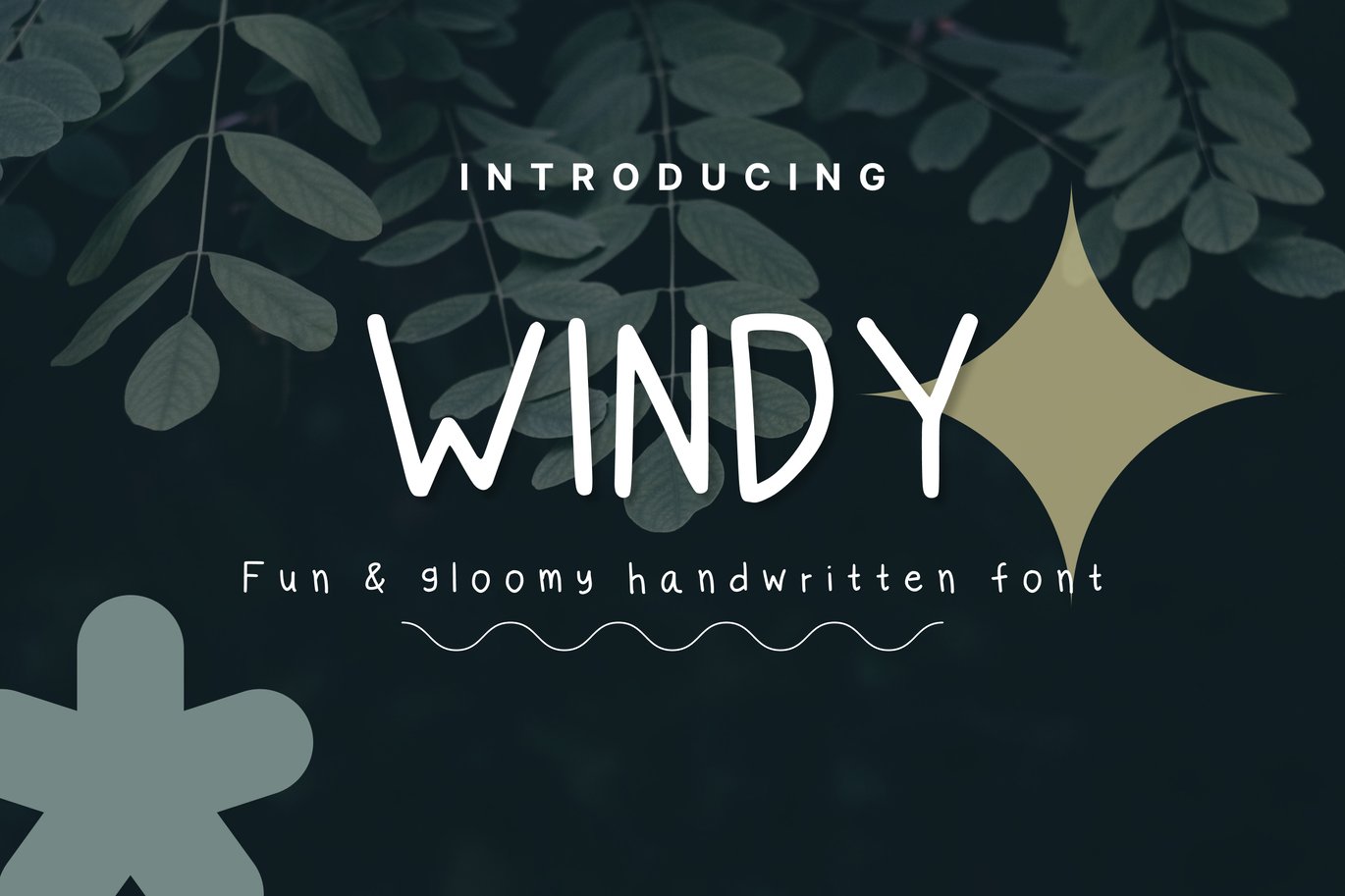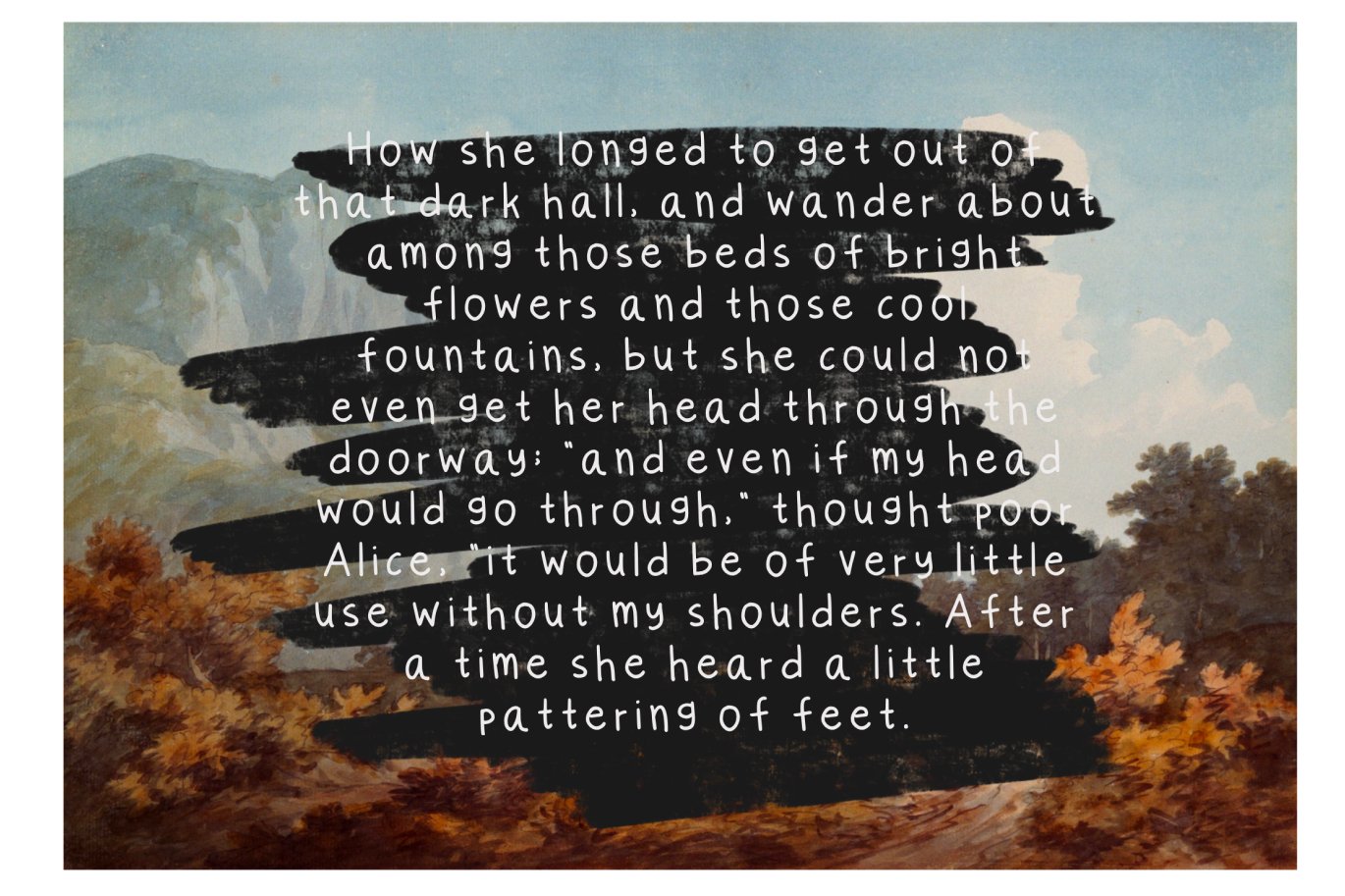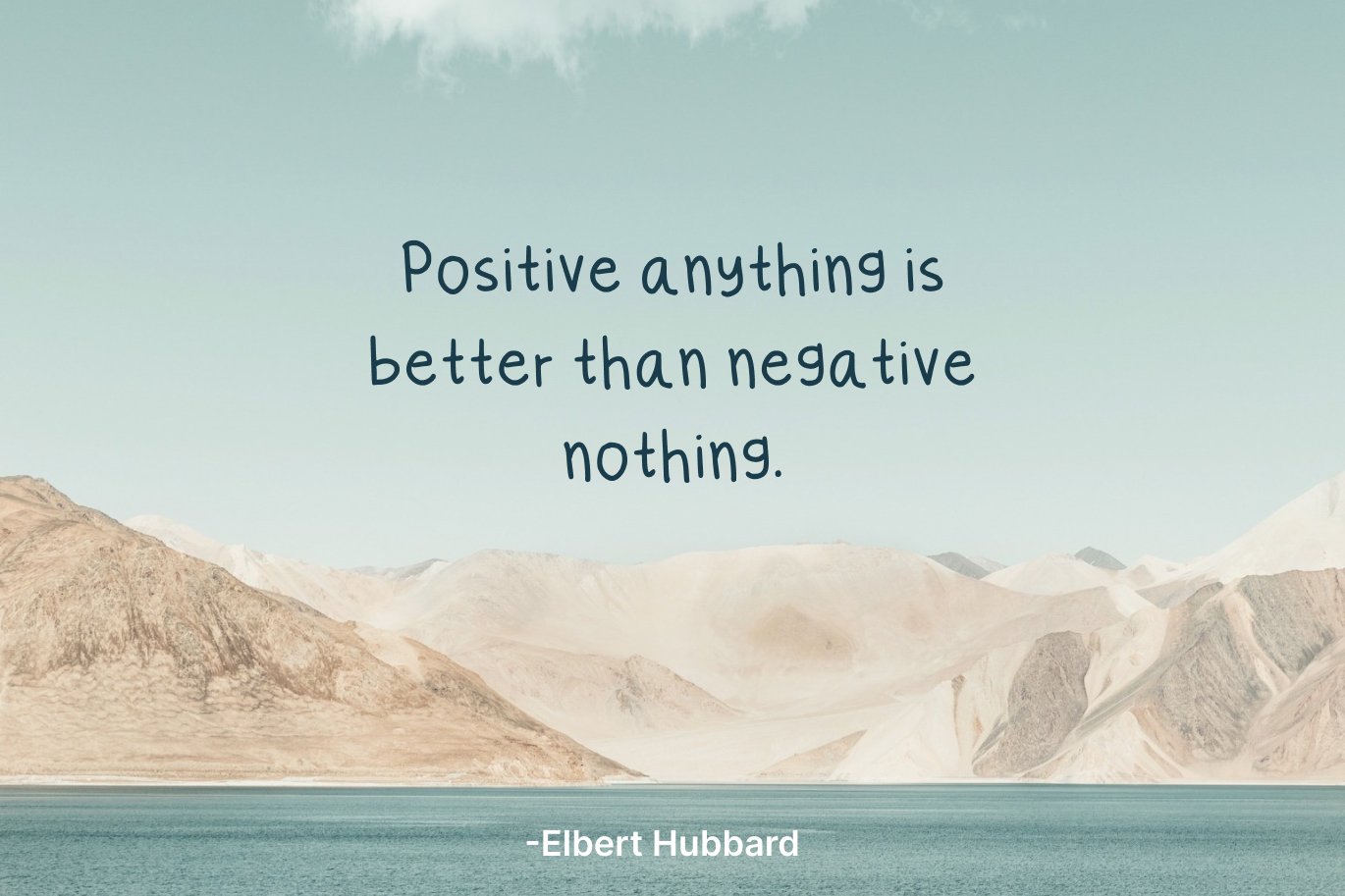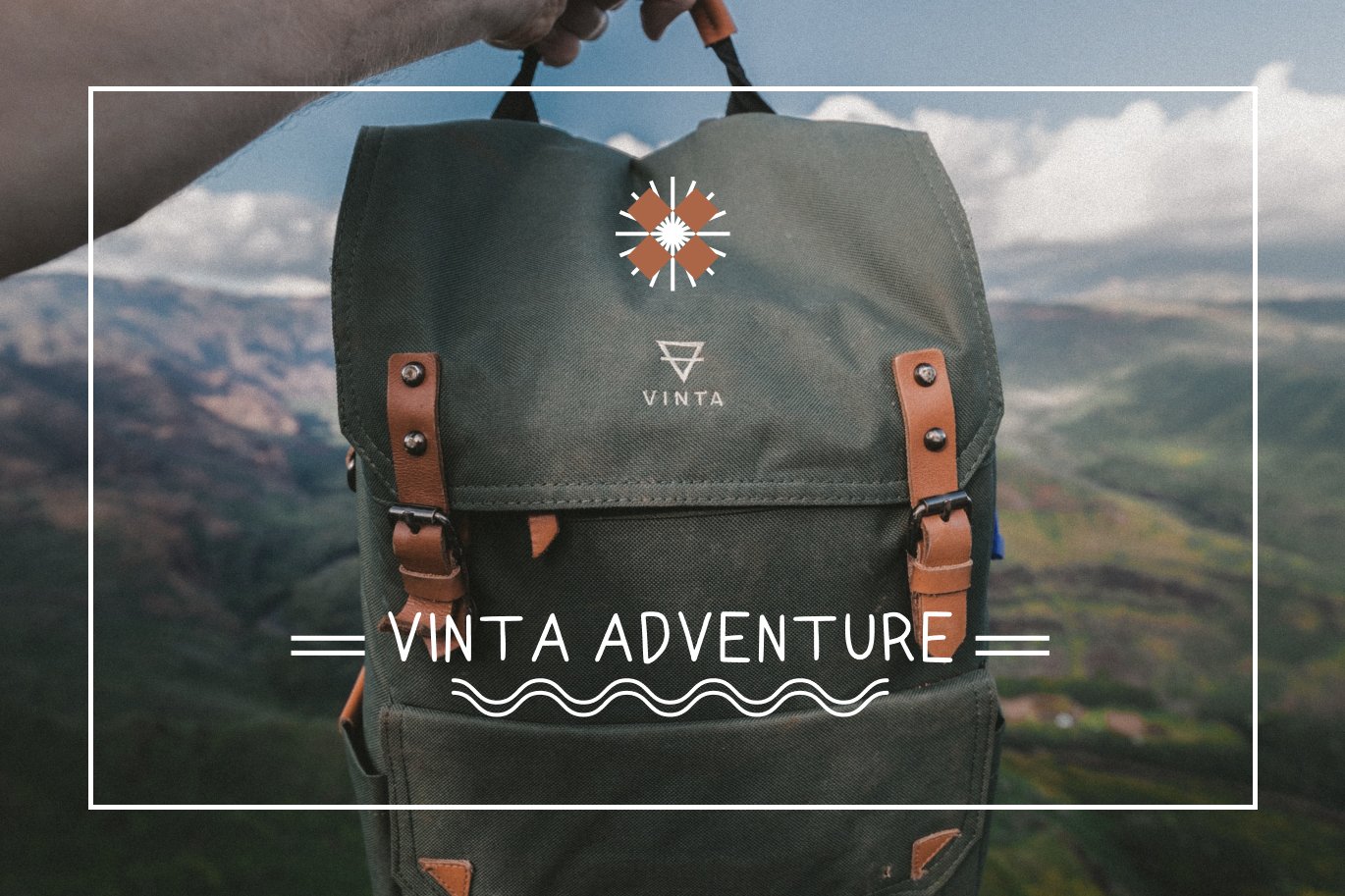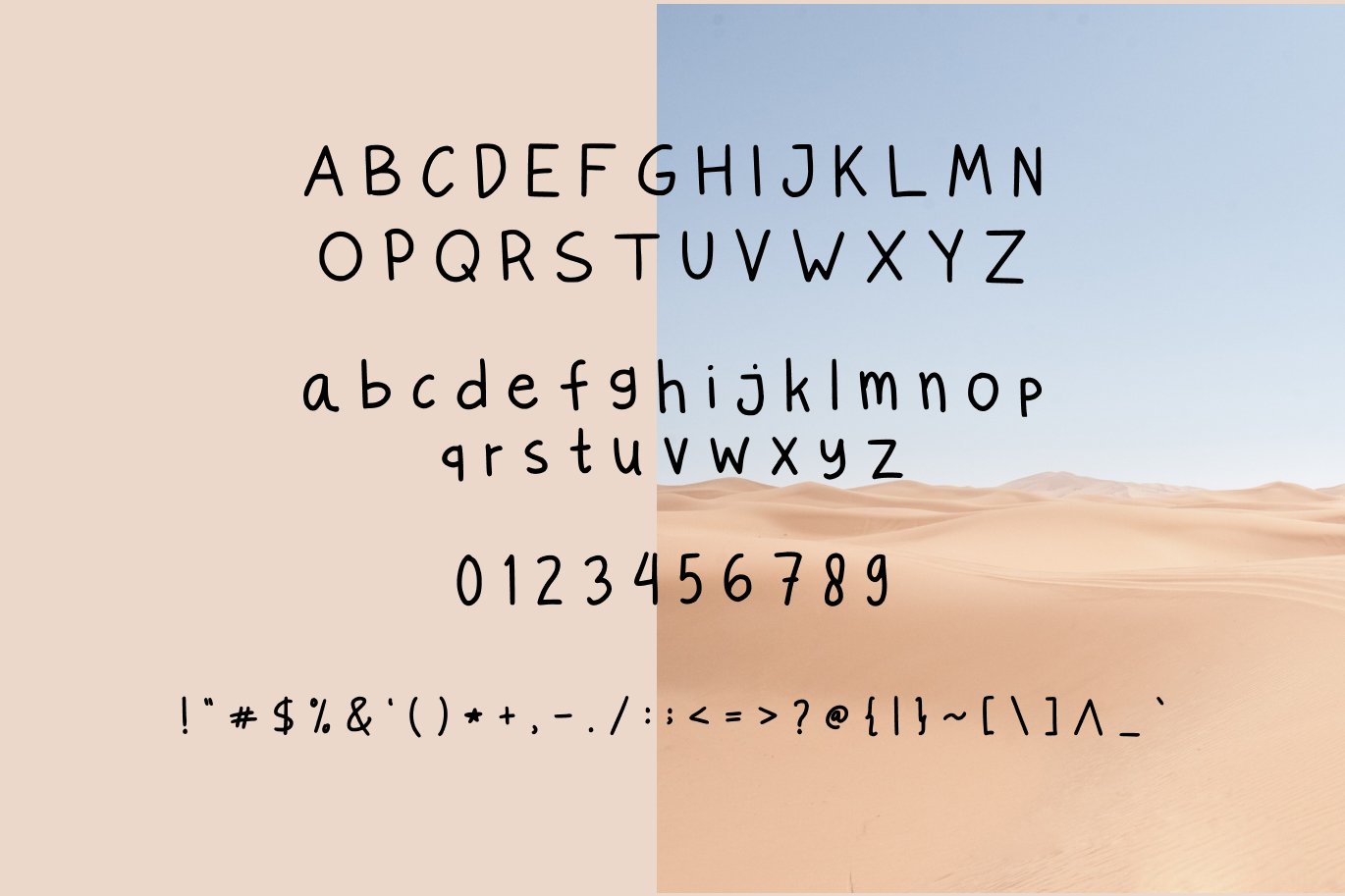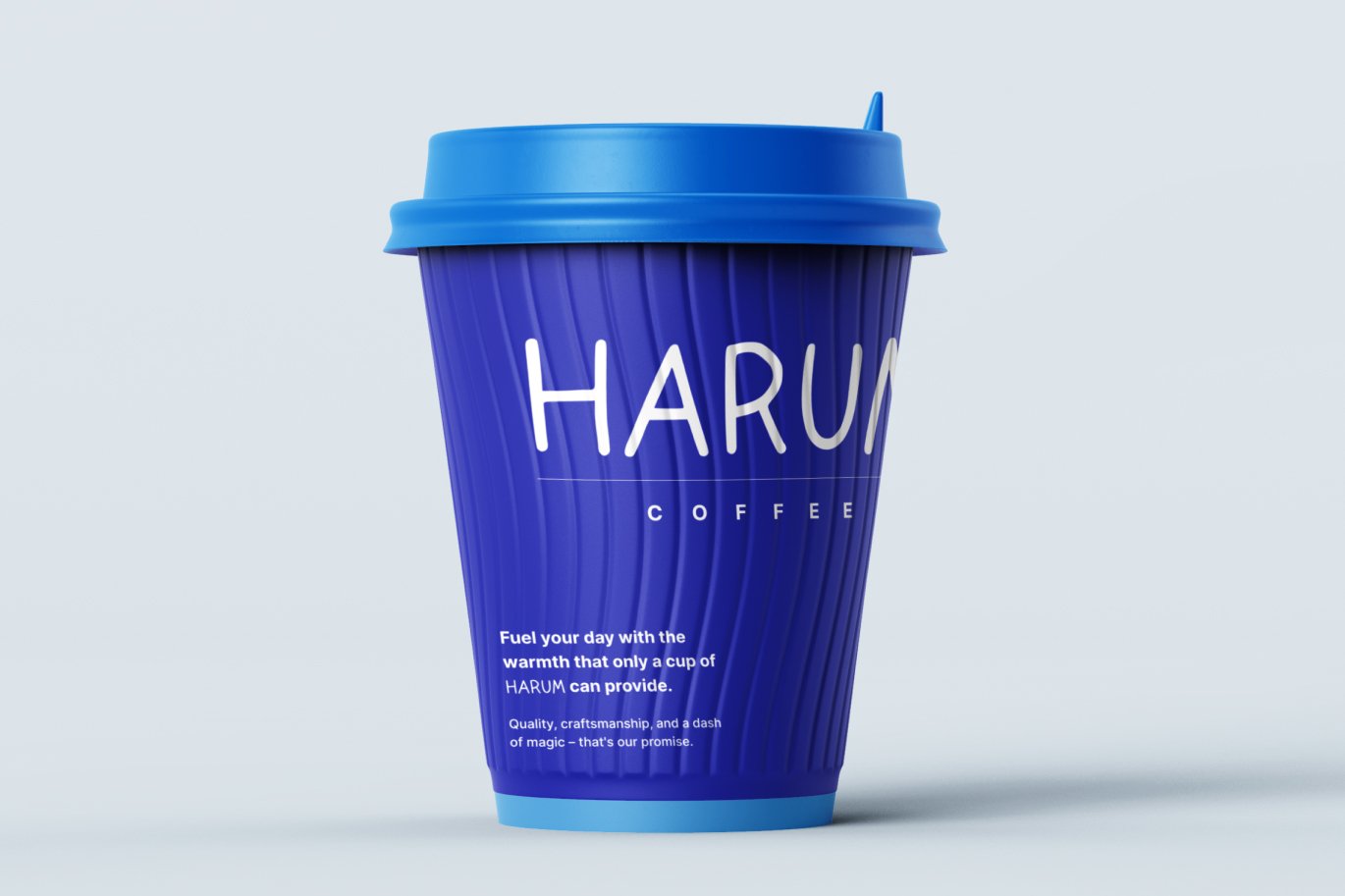
Windy – Clean Handwritten Font
Windy is a clean handwritten font for your all design needs. Suitable for fun, charming, enjoyable, and gloomy characteristic design images. Suitable for t-shirts, tote bags, postcards, quote posts, social media, website headlines, fashion, foods, posters, stickers, labels, etc.
- Number and Punctuation Symbols